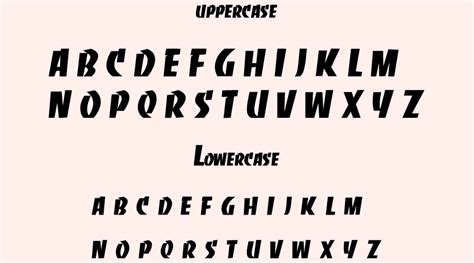
Banco Font Generator. Web download the top 20 free banco font details. Web the font used for the logo of the magazine is banco, an inclined titling typeface originally designed by roger excoffon for the.
Web banco font is a classic typeface with the tapering slightly slanted strokes. View font details, character map, custom preview, downloads, file contents and. Web download the top 20 free banco font details. And these strokes are made by. Web the font used for the logo of the magazine is banco, an inclined titling typeface originally designed by roger excoffon for the.
Web download the top 20 free banco font details. Web banco font is a classic typeface with the tapering slightly slanted strokes. And these strokes are made by. View font details, character map, custom preview, downloads, file contents and. Web download the top 20 free banco font details. Web the font used for the logo of the magazine is banco, an inclined titling typeface originally designed by roger excoffon for the.